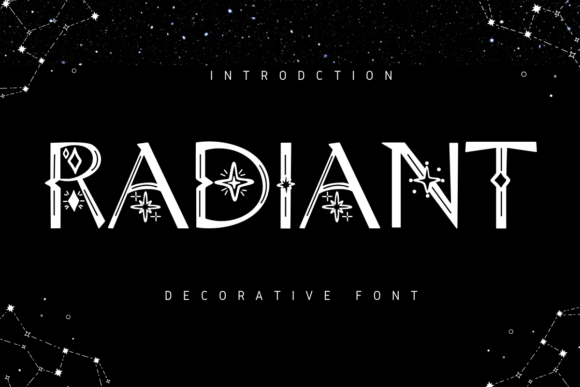
Radiant Font: A Decorative Delight for Creative Expression
Are you looking for a font that adds a touch of elegance and sophistication to your creative projects? Look no further than Radiant Font, a beautiful decorative font perfect for taking notes, writing a diary, or making greeting cards. But its uses don’t stop there – Radiant Font can be used for a wide range of designs, from banners and content to mugs, cards, shirts, stationery, social media posts, and more!
What is Radiant Font?
Radiant Font is a decorative font designed to add a touch of glamour and sophistication to any project. Its unique and elegant design makes it perfect for a variety of creative endeavors, from personal to professional. Whether you’re a student, artist, or simply someone who loves to write, Radiant Font is a great choice for anyone looking to add some flair to their work.
Uses of Radiant Font
Radiant Font is a versatile font that can be used for a wide range of projects. Here are some ideas to get you started:
- Note-taking: Add a touch of elegance to your notes with Radiant Font. Perfect for students, teachers, and anyone who likes to keep their notes organized and stylish.
- Diary writing: Make your diary entries feel like a special keepsake with Radiant Font. Its decorative design adds a personal touch to your writing.
- Greeting cards: Create beautiful greeting cards for special occasions like birthdays, holidays, and weddings with Radiant Font.
- Banners: Use Radiant Font to create eye-catching banners for events, parties, or promotions.
- Content creation: Add a touch of sophistication to your blog posts, articles, or social media content with Radiant Font.
- Mugs: Design personalized mugs with Radiant Font for a unique and thoughtful gift.
- Cards: Create custom cards for any occasion with Radiant Font.
- Shirts: Design stylish t-shirts, hoodies, or tote bags with Radiant Font.
- Stationery: Add a touch of elegance to your stationery with Radiant Font. Perfect for personal or professional use.
- Social media posts: Make your social media posts stand out with Radiant Font.
Benefits of Using Radiant Font
Radiant Font offers several benefits, including:
- Elegant design: Radiant Font adds a touch of sophistication and elegance to any project.
- Versatility: Radiant Font can be used for a wide range of projects, from personal to professional.
- Easy to read: Despite its decorative design, Radiant Font is easy to read and understand.
- Customizable: Radiant Font can be customized to fit your specific needs and style.
Tips for Using Radiant Font
Here are some tips for using Radiant Font effectively:
- Use it sparingly: Radiant Font is a decorative font, so use it sparingly to avoid overwhelming your design.
- Pair it with other fonts: Pair Radiant Font with other fonts to create a unique and visually appealing design.
- Experiment with colors: Radiant Font looks great in a variety of colors, so experiment with different colors to find the one that works best for your design.
- Pay attention to size: Make sure to adjust the size of Radiant Font according to your design needs.
Radiant Font is a beautiful decorative font that adds a touch of elegance and sophistication to any project. Its versatility and ease of use make it perfect for a wide range of creative endeavors, from personal to professional. With its elegant design, Radiant Font is sure to make your projects stand out.